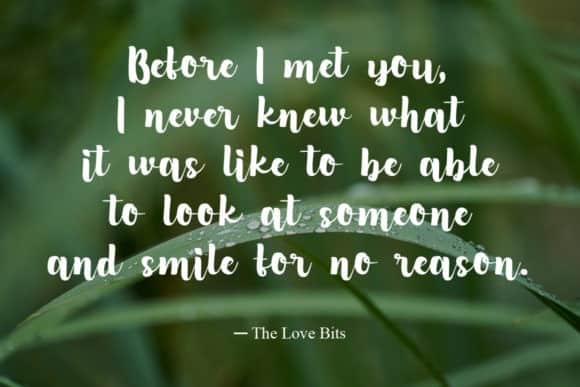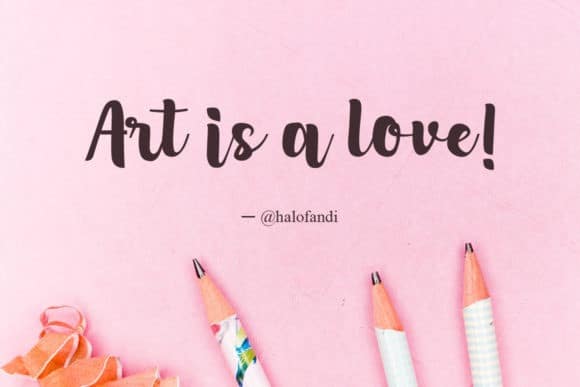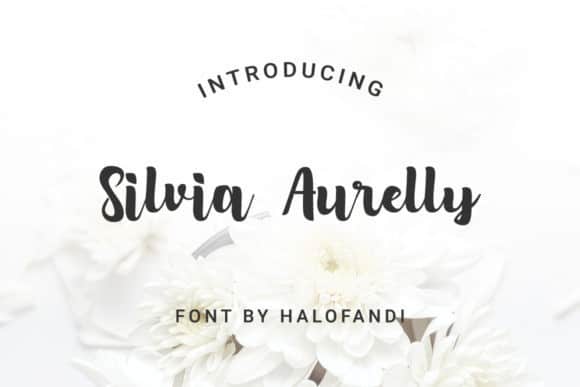
Silvia Aurelly Script Font
Introducing Silvia Aurelly Script Font – Inspired by snowflakes on calligraphy, It’s perfect for winter events, making calligraphy merry christmas. Made from font designer named halofandi. is The result out of a stunning pairing of a brush pen and pencil that makes it look incredibly endearing and authentic. Use this gorgeous and unique handwritten font to bring any DIY project to life!
Silvia Aurelly Script Font is perfect for winter sale design, branding, logo, invitation, stationery, wedding, product packaging, merchandise, monogram, blog design, game titles, cute style design, Book/Cover Title and more.